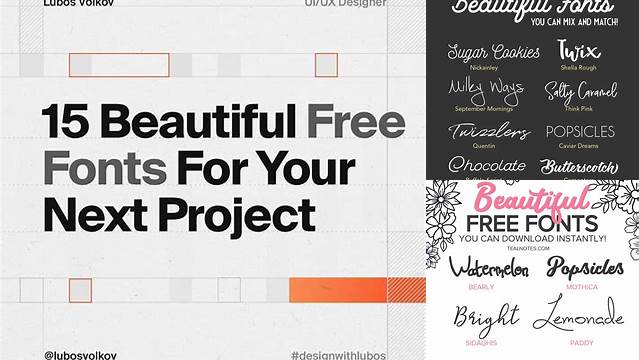
Beautiful Fonts: Free Downloads For Your Projects
Hey guys! Are you looking to add some serious pizzazz to your projects? Well, you've come to the right place! In this article, we're diving deep into the world of beautiful fonts and where you can find them for free. Trust me, choosing the right font can make or break your design, so let's get started!
1. What Makes a Font "Beautiful?"
So, what exactly makes a font beautiful? It's not just about aesthetics, but also about functionality and how well it fits your overall design. A beautiful font should be legible, consistent, and evoke the right emotions. Think about it β a playful font might be perfect for a children's book, but not so much for a legal document. Different strokes for different folks, right? Thereβs a whole psychology behind fonts, guys! Some fonts scream elegance and sophistication, while others whisper fun and creativity. Understanding these nuances is key to selecting a beautiful font that truly resonates with your project's message and target audience. For instance, serif fonts like Times New Roman often convey a sense of tradition and authority, while sans-serif fonts like Helvetica tend to feel modern and clean. Script fonts, on the other hand, can add a touch of personality and flair, but should be used sparingly to maintain readability. Choosing a beautiful font, you need to ask yourself: What feeling do I want to evoke? Is it for a formal setting or a casual one? These are the questions that will guide you in your quest for the perfectly beautiful font. And remember, sometimes the most beautiful fonts are the ones you least expect!
7. Understanding Font Licensing: What You Need to Know
Okay, let's talk about the not-so-glamorous but super important topic of font licensing. Guys, understanding font licenses is crucial, especially if you're using free fonts in your projects. A font license is basically a legal agreement that outlines how you can use a particular font. It specifies things like whether you can use the font for personal or commercial projects, how many users can access the font, and whether you can modify or redistribute the font. Ignoring font licenses can lead to some serious legal trouble, so it's definitely not something you want to overlook. There are several different types of font licenses, but the most common ones you'll encounter are personal use licenses and commercial use licenses. Personal use licenses typically allow you to use the font for non-profit projects, like school assignments or personal greeting cards. Commercial use licenses, on the other hand, allow you to use the font in projects that generate revenue, such as logos, websites, and marketing materials. Some free fonts come with a completely open-source license, which means you can use them for just about anything, without any restrictions. But it's always a good idea to double-check the license terms before using a font, just to be on the safe side. Most font websites clearly state the license information, but if you're unsure, it's best to contact the font designer or foundry directly. So remember, guys, a little bit of research can save you a whole lot of headaches down the road. Always understand your font licenses!
8. Personal Use vs. Commercial Use: The Key Difference
Alright, let's break down the difference between personal use and commercial use when it comes to beautiful fonts. This is a crucial distinction to understand, guys, especially if you're planning to use free fonts in your projects. Personal use basically means you're using the font for something that doesn't generate income or profit. Think of it like this: you're creating a birthday card for a friend, designing a personal blog, or working on a school project. These are all examples of personal use. In these cases, you can typically use free fonts that are licensed for personal use without any issues. Commercial use, on the other hand, means you're using the font in a project that will generate income or profit. This could be anything from creating a logo for a client to designing marketing materials for your business. If you're using a font for commercial purposes, you need to make sure you have a commercial use license. Some free fonts come with commercial use licenses, but many are only licensed for personal use. Using a font commercially without the proper license is a copyright infringement, which can lead to legal trouble. So how do you know if a font is licensed for commercial use? The best way is to check the license agreement that comes with the font. This will usually be a text file or a section on the font's download page. If you're still unsure, it's always a good idea to contact the font designer or foundry directly and ask. Remember, guys, it's always better to be safe than sorry when it comes to font licensing! Choose the right license for your use.
9. How to Identify a Font: Tools and Techniques
Ever stumbled upon a beautiful font and wondered what it is? We've all been there, guys! Identifying a font can be a tricky business, but thankfully, there are some awesome tools and techniques that can help. One of the easiest ways to identify a font is to use an online font identifier. There are several websites that offer this service, such as WhatTheFont, Identifont, and Fontspring Matcherator. These tools work by analyzing an image of the font and comparing it to their vast databases of typefaces. To use these tools, simply upload an image of the text you want to identify, and the tool will give you a list of possible matches. It's important to upload a clear, high-resolution image with enough text for the tool to analyze. Another technique you can use to identify a font is to look for distinctive features. Each font has its own unique characteristics, such as the shape of the serifs, the weight of the strokes, and the spacing between letters. By paying attention to these details, you can often narrow down the possibilities. There are also several font identification guides and resources available online that can help you learn about different font styles and characteristics. If you're still struggling to identify a font, you can try asking for help in online design forums or communities. There are plenty of font enthusiasts out there who are happy to lend a hand. So don't be afraid to reach out and ask, guys! Identifying a font can be a fun and rewarding challenge, and with the right tools and techniques, you'll be a font detective in no time.
11. Serif Fonts: Classic and Elegant Choices
Serif fonts, guys, are the timeless classics of the typography world. Think of them as the little black dress of fonts β always stylish, always appropriate. These fonts are characterized by the small strokes or